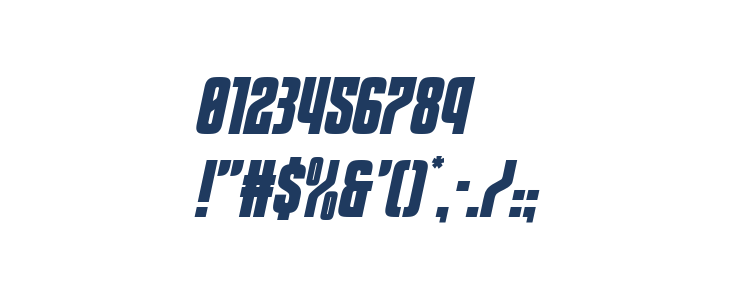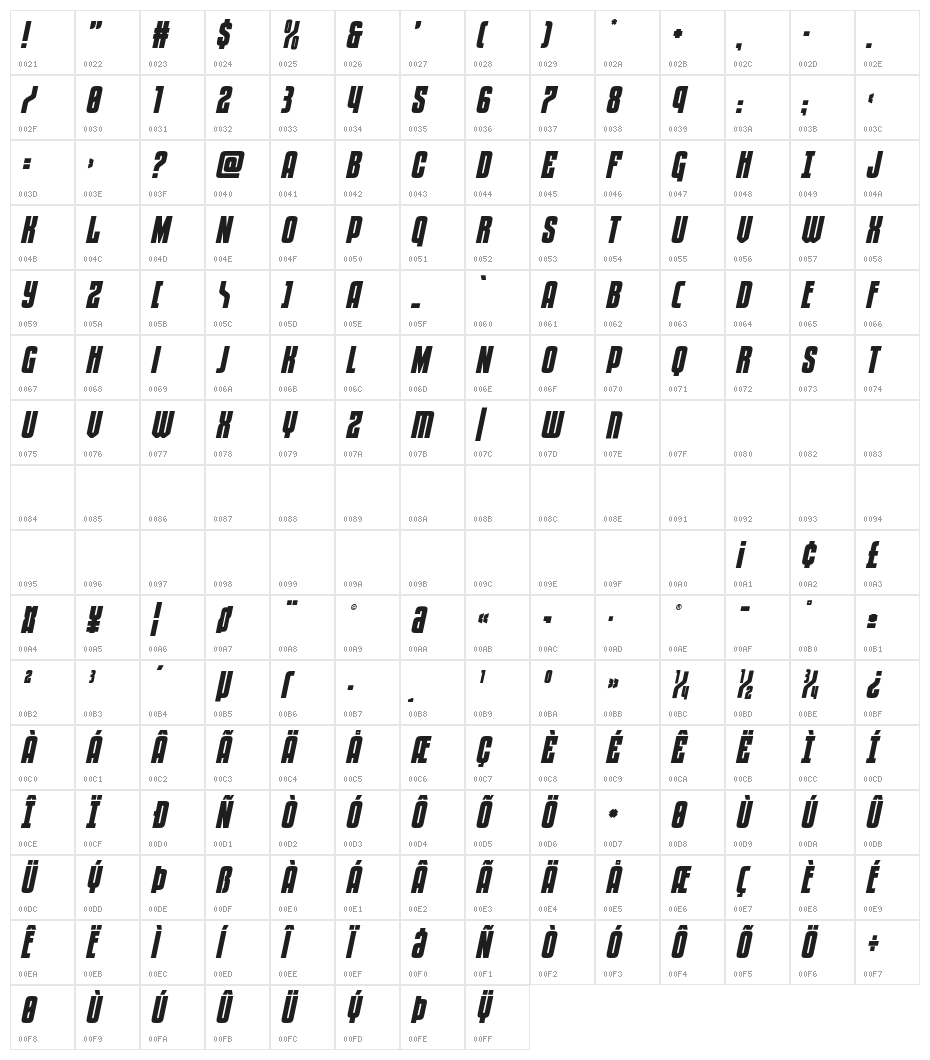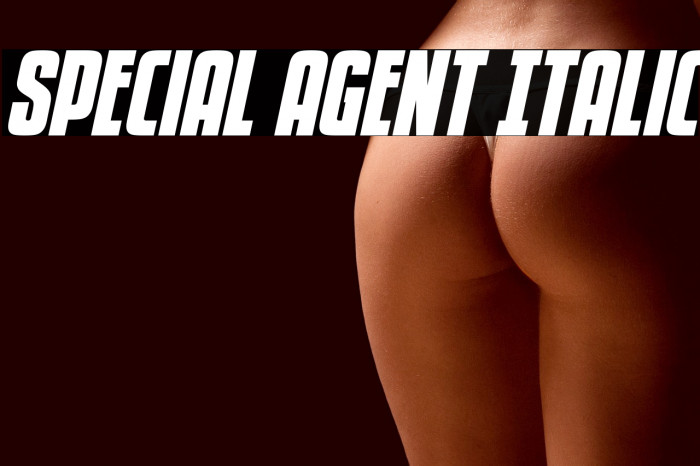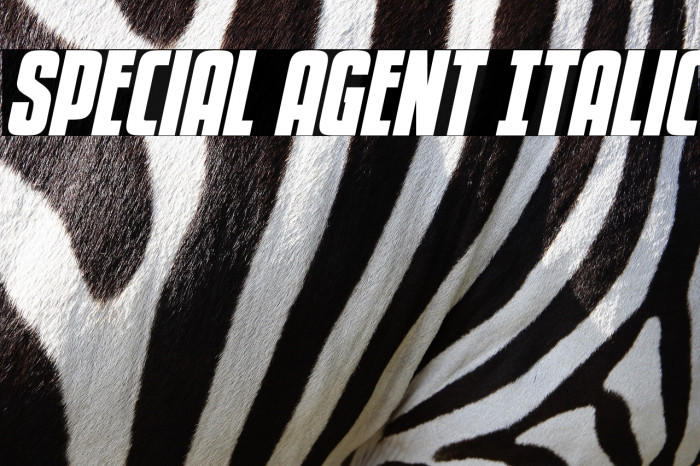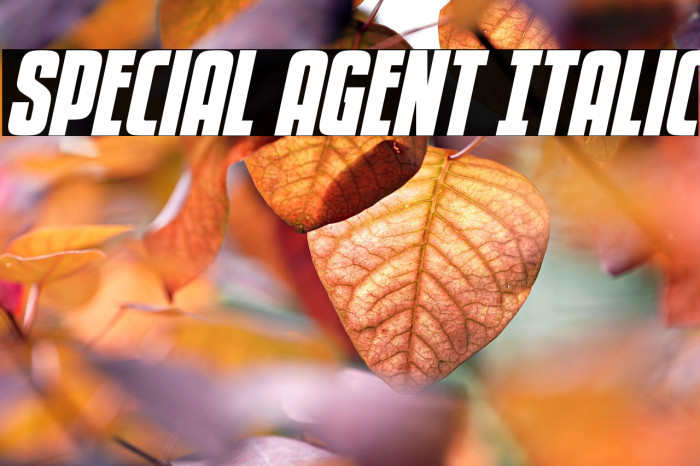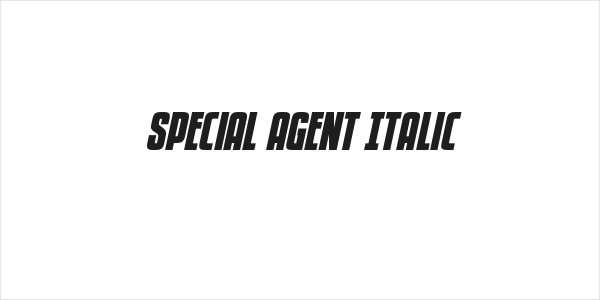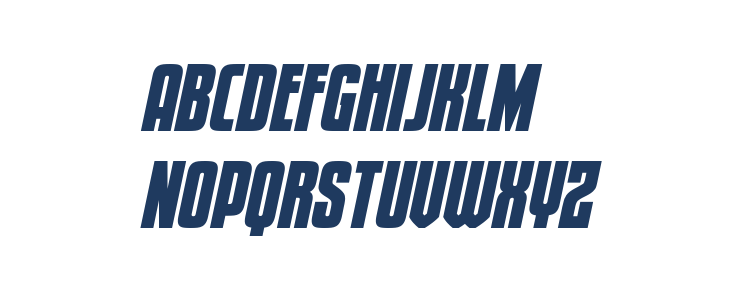
Special Agent Italic Font
Special Agent Italic Description
This font exhibits a bold and dynamic style with a strong italic slant, giving it a sense of movement and urgency. The characters are tightly spaced, enhancing its compact and impactful appearance. The strokes are thick and consistent, providing a high contrast that makes the text stand out prominently. Its design is modern and assertive, suitable for capturing attention and conveying a sense of action or speed. The uppercase and lowercase letters maintain a uniform style, while the numerals and special characters complement the overall aesthetic.
| Proposed Projects | Ideal for use in action-themed posters, sports branding, video game titles, or any project requiring a bold and energetic typeface. |